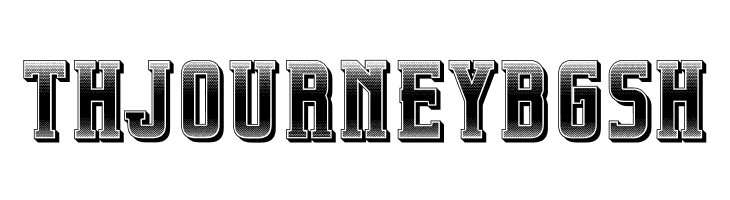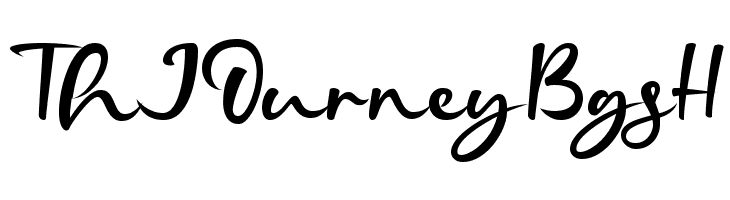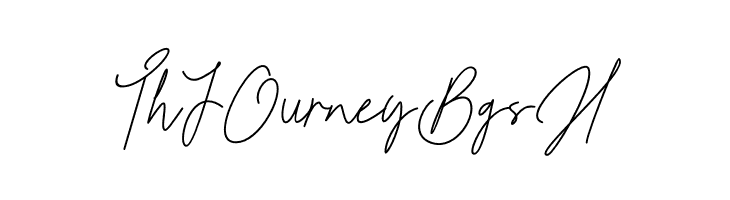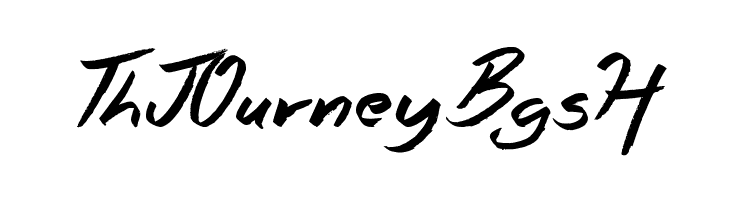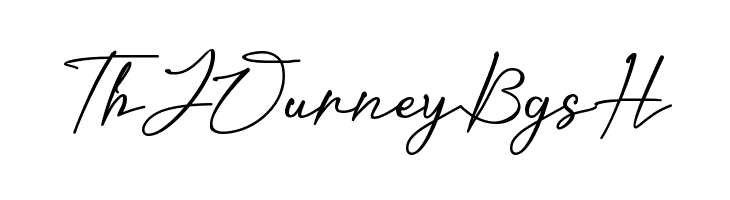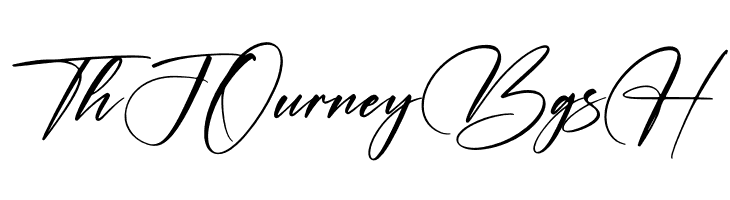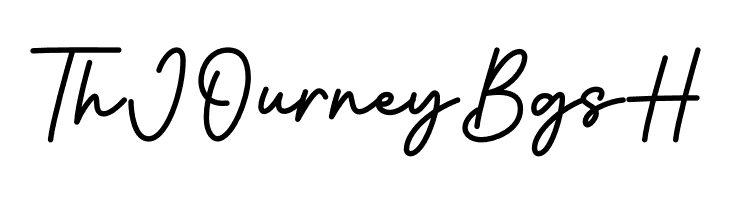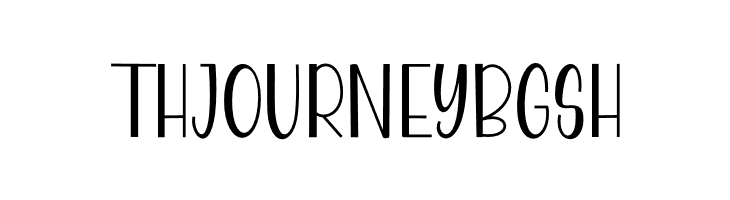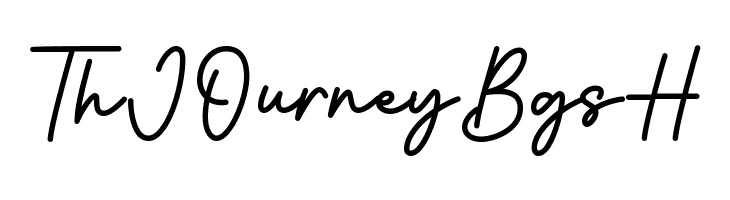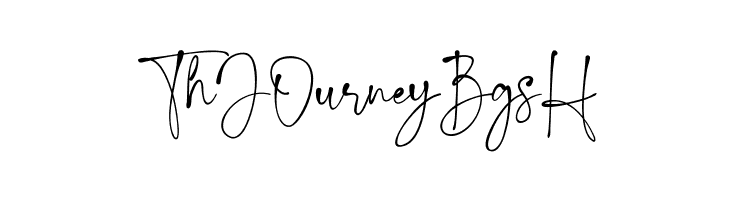
A lively, fluid handwritten script with smooth curves and a personal touch.
A smooth, flowing script font with a natural handwriting style.
A fluid and graceful script font with a handwritten signature style.
A sophisticated script font with flowing, interconnected letters and elegant curves.
Elegant cursive script with a playful, handwritten style.
A modern, narrow font with artistic curves and angles.
A bold, decorative font with a vintage, three-dimensional engraved style.
A bold, brush-style font with dynamic strokes and a sense of motion.
A graceful and elegant handwritten script font with fluid, connected letters.
A dynamic and playful script font with a handwritten feel.